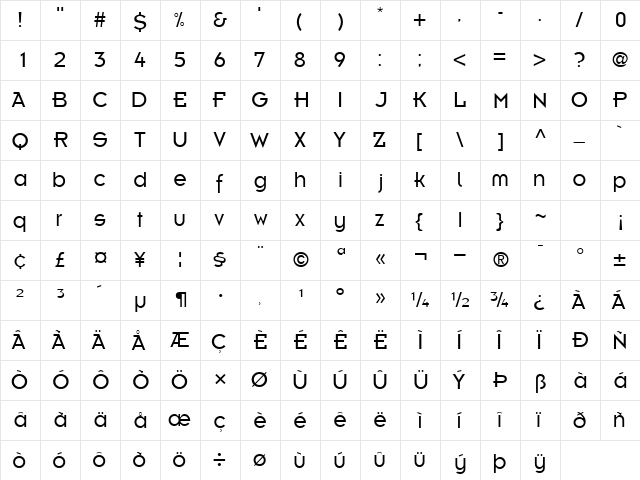
KernelLightAlternateSSK Regular
Design Context for KernelLightAlternateSSK Typeface
KernelLightAlternateSSK takes a measured approach to typography — its balanced proportions and neutral character make it a reliable workhorse for both digital and print work. Its slender proportions lend an understated elegance to any composition.